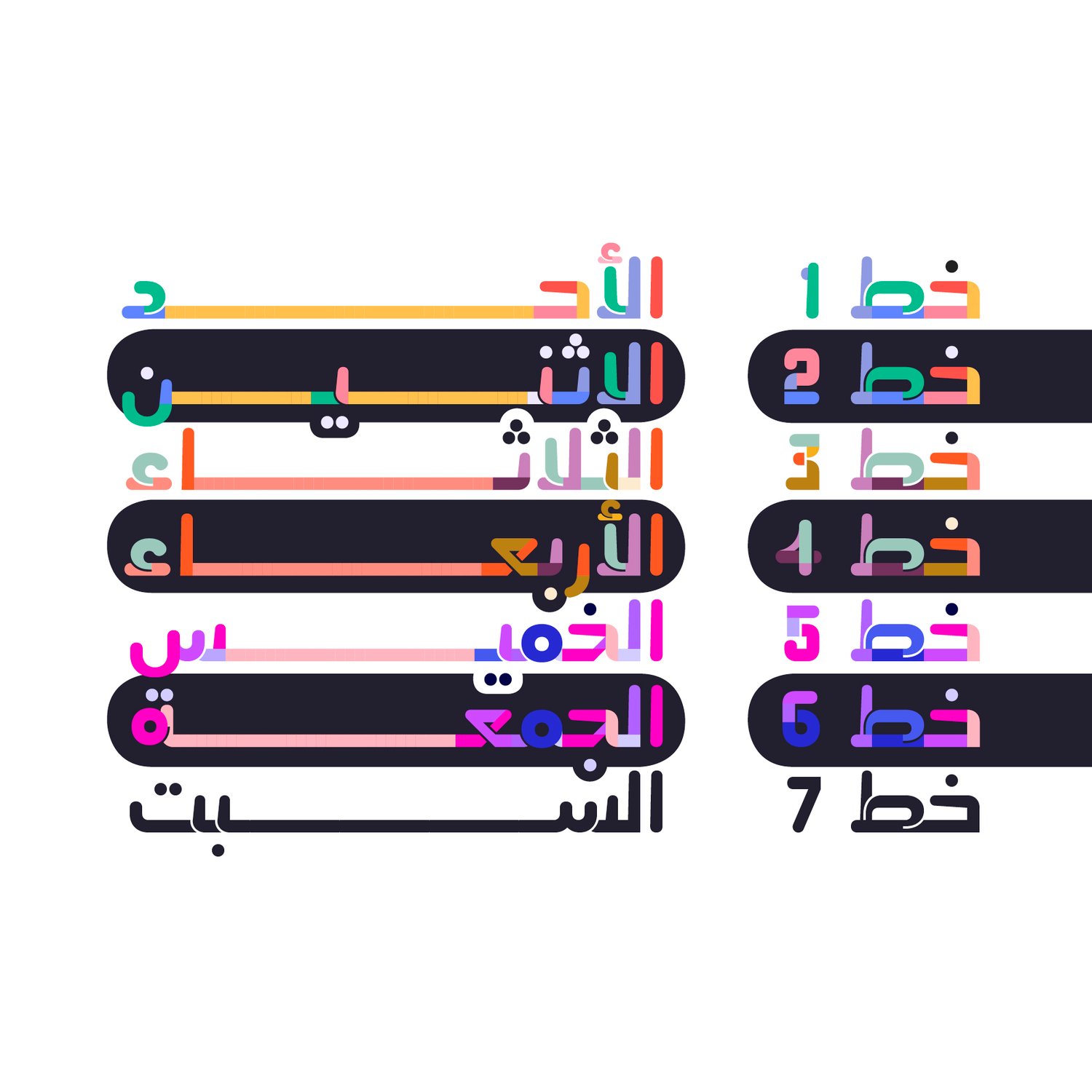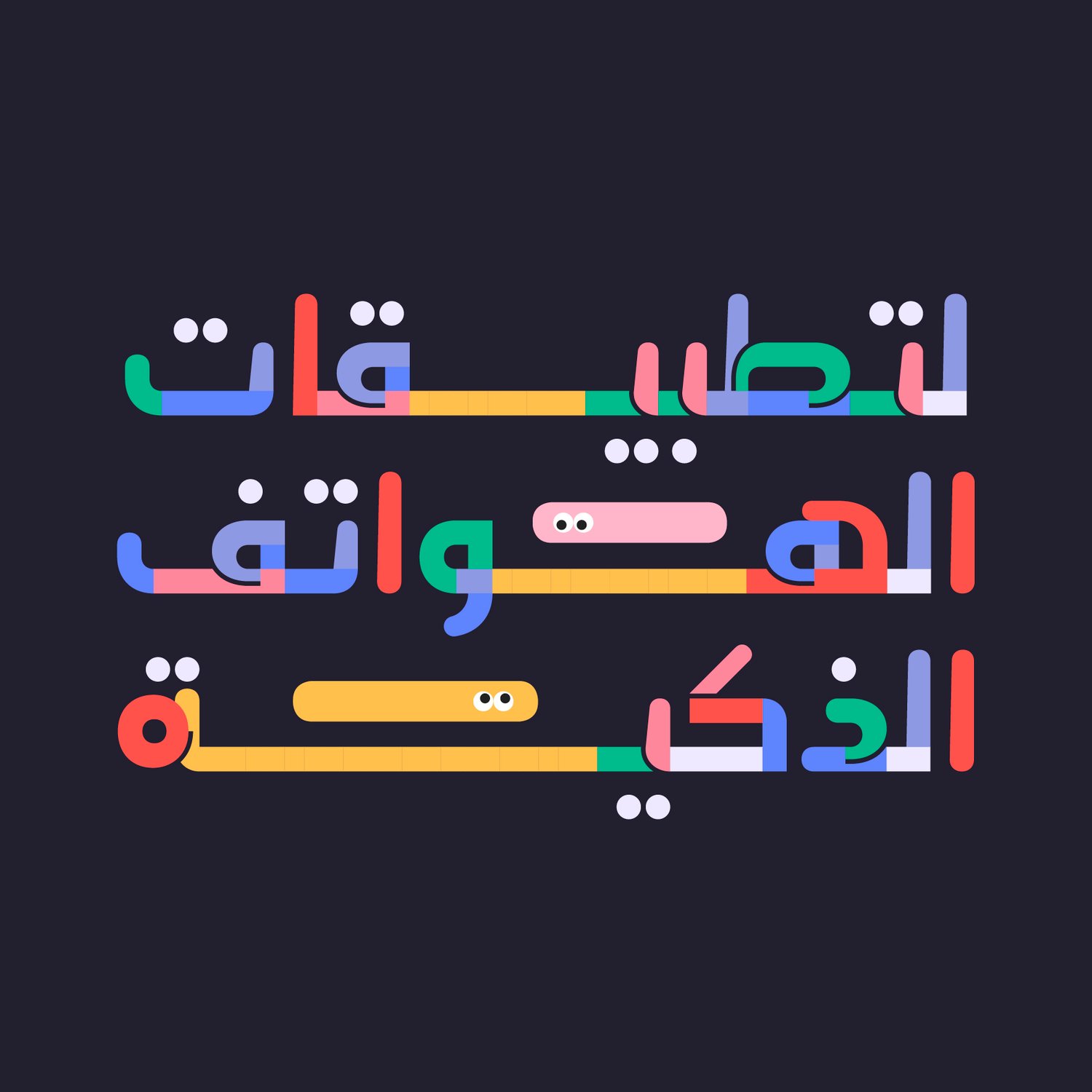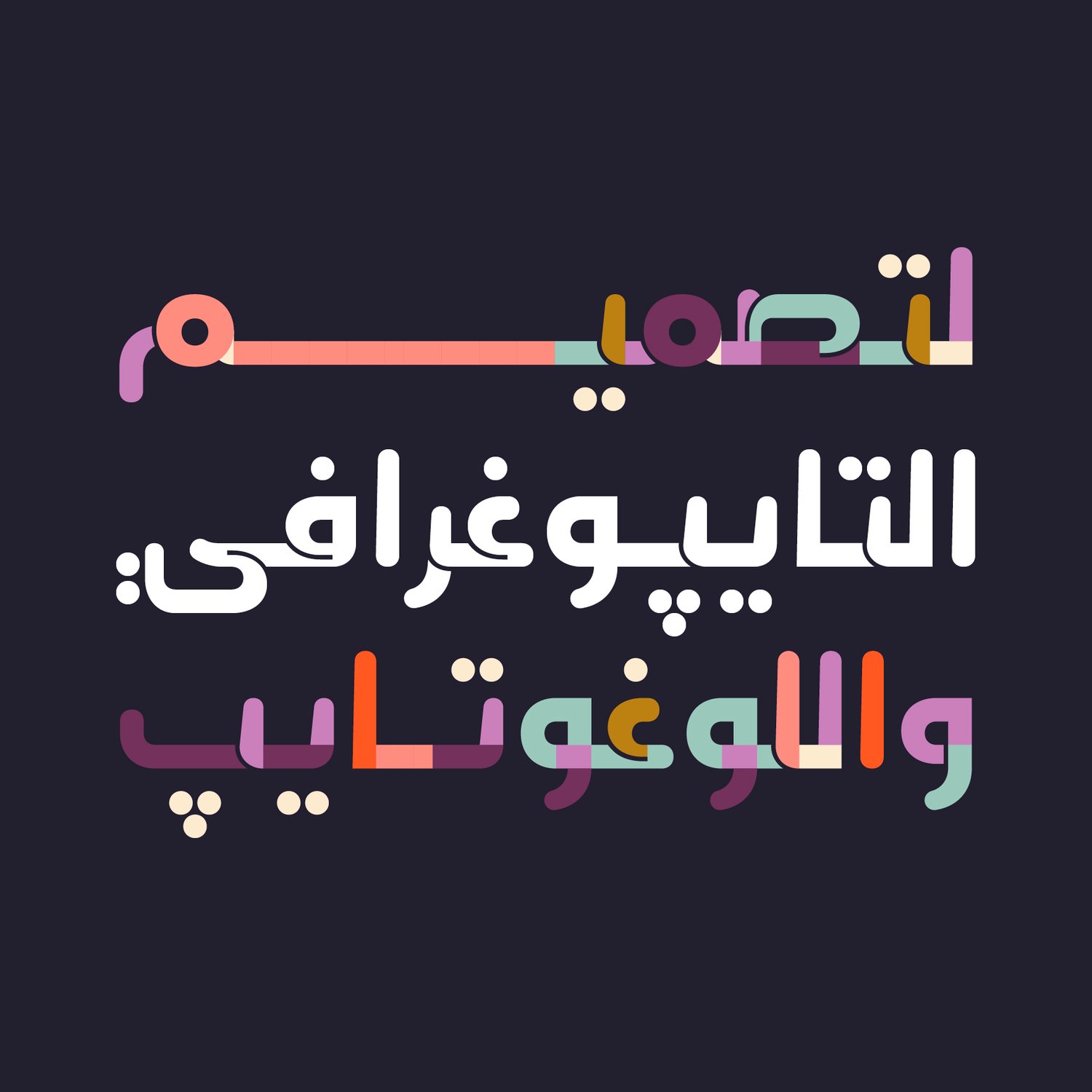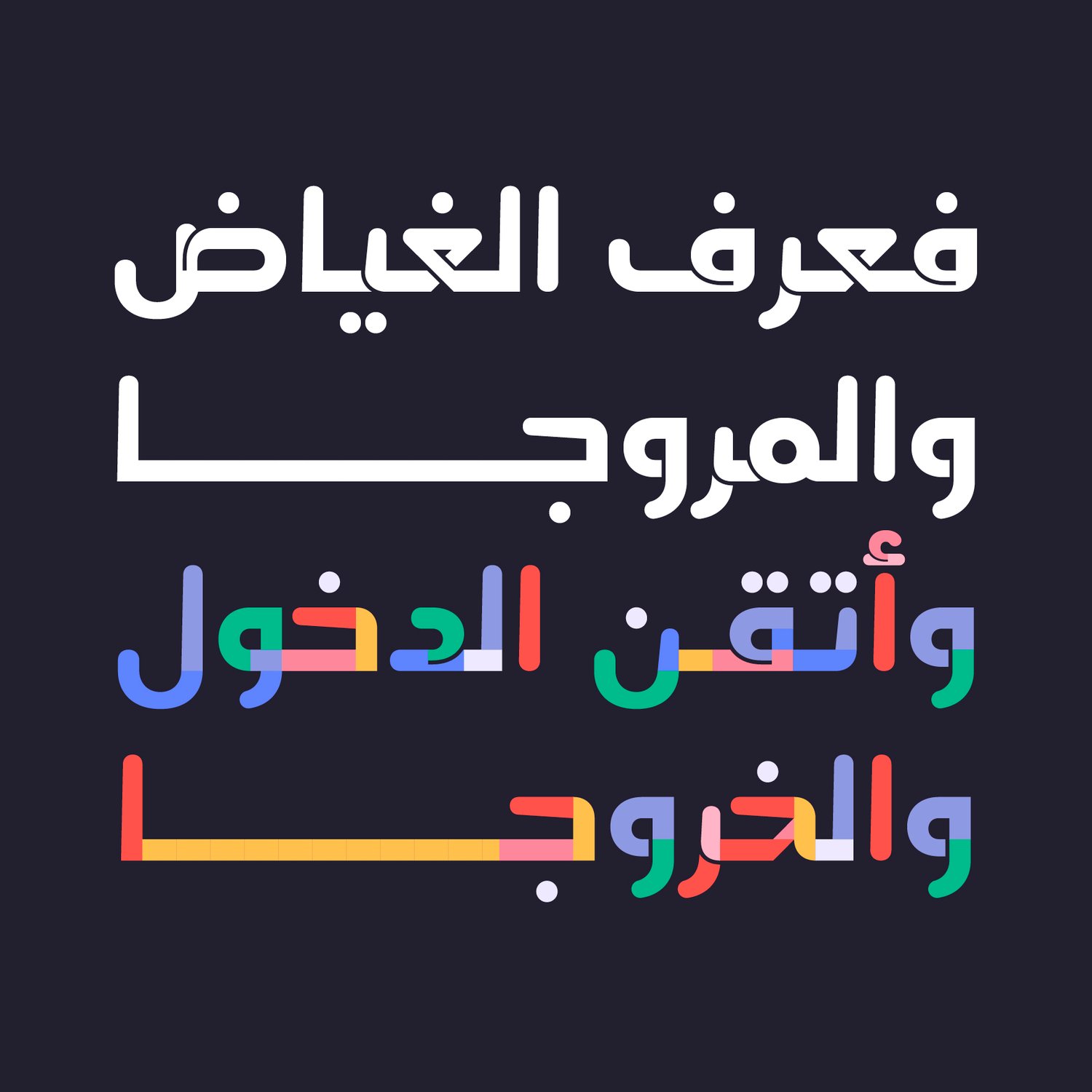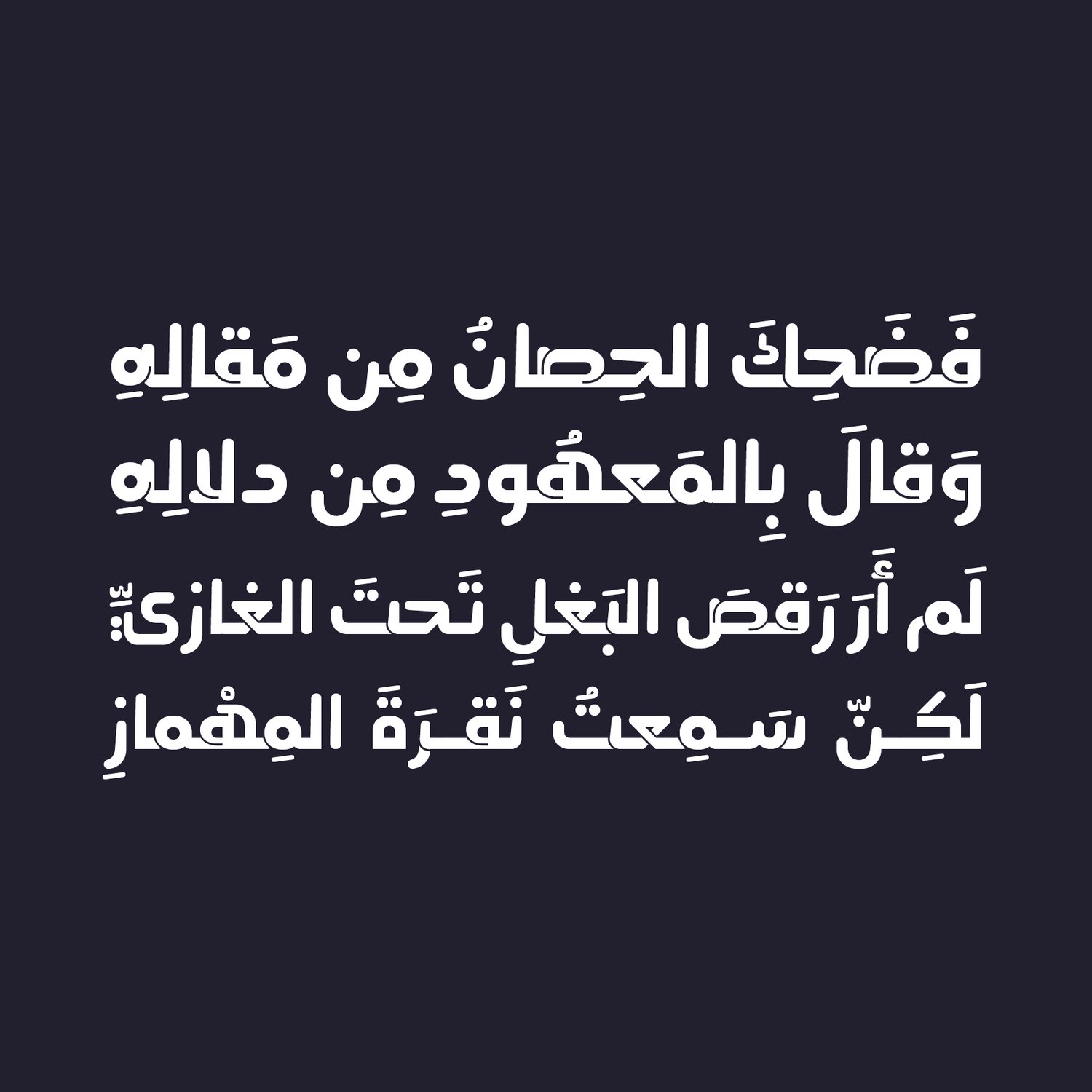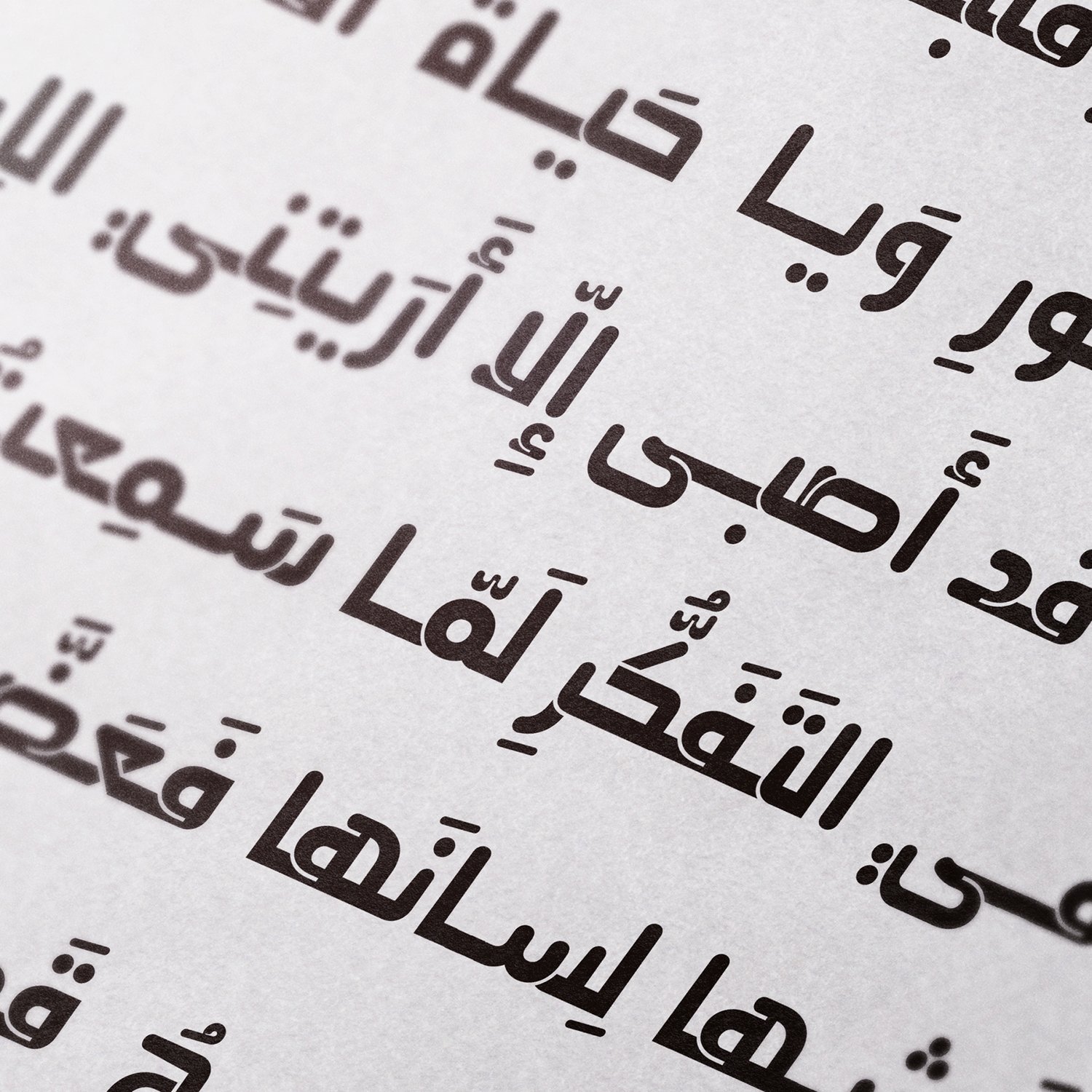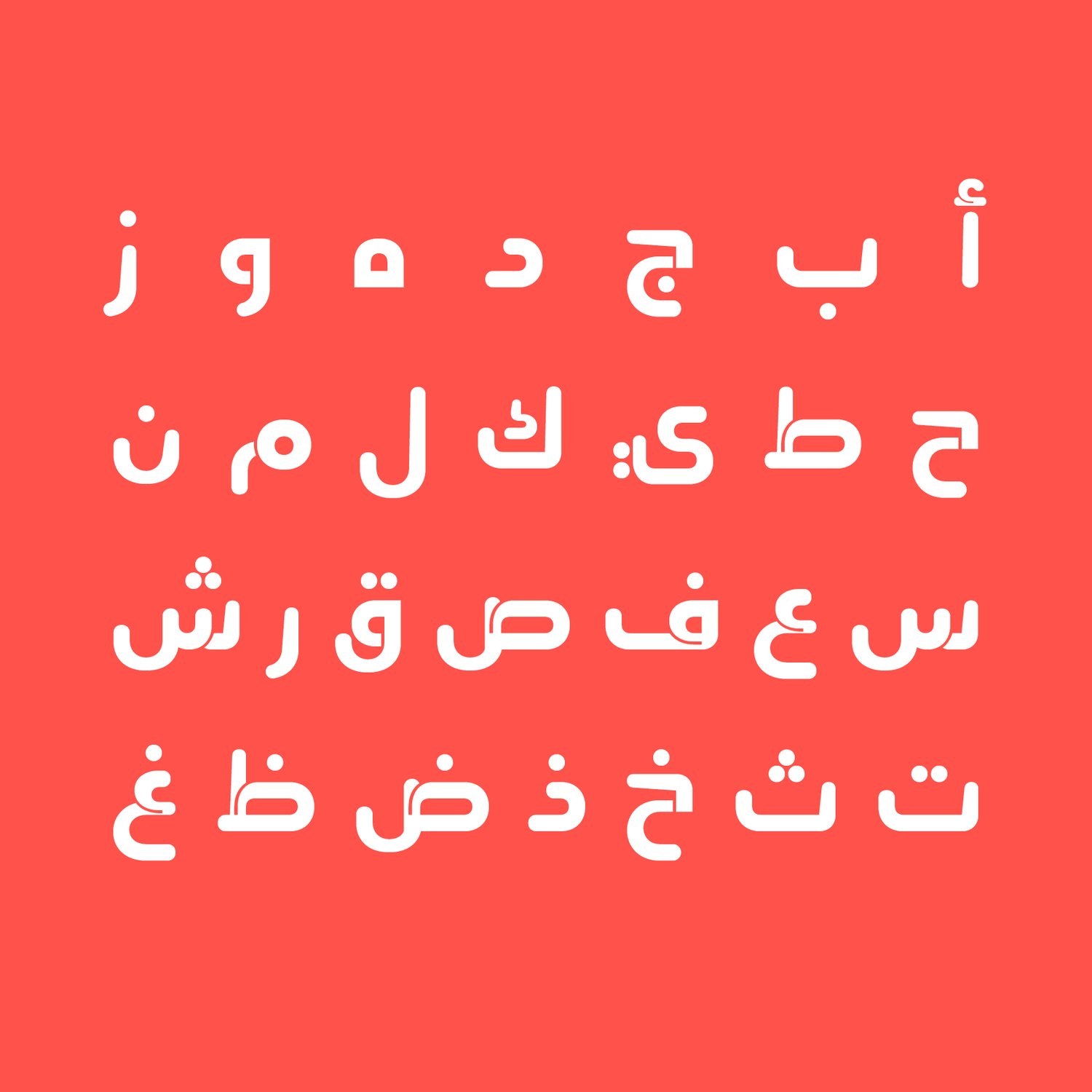
Menassa - Arabic Color Font
Menassa (Arabic for "Platform") is a display typeface that reimagines traditional Arabic letterforms through a vibrant interplay of shape and color. Its dynamic visual language makes it ideal for cultural campaigns, editorial spreads, and any context where Arabic typography is meant to shine with personality and flair. Inspired by the concept of a platform, Menassa invites viewers to engage with Arabic script in a fresh, expressive way. The typeface includes six color font formats (SVG.TTF, SBIX, and COLR.TTF), alongside a standard black OTF version. It’s ideal for contemporary design projects across web, print, branding, advertising, and mobile applications.